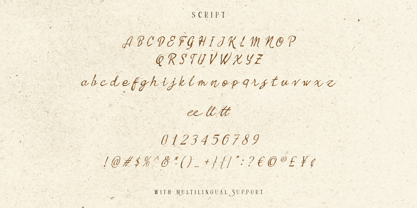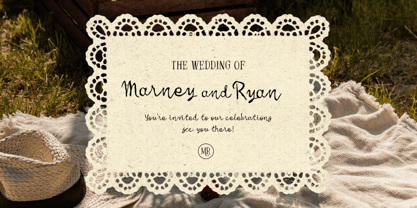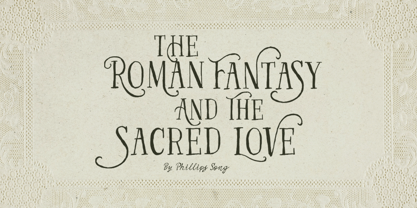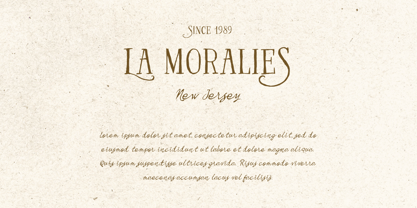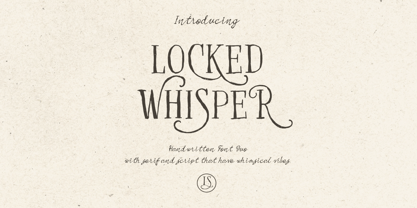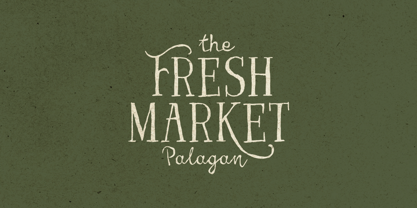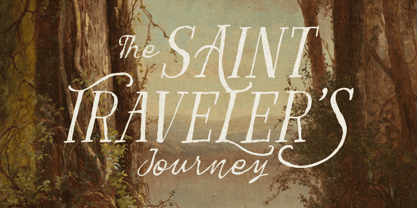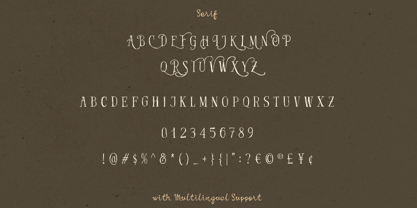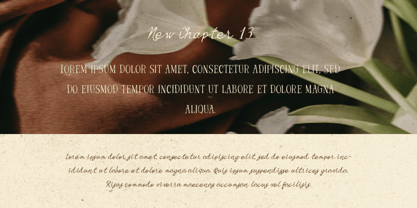
Locked Whisper
The Locked Whisper Font Family was designed by Hendry Juanda and published by Letterhend. Locked Whisper contains 4 styles and family package options. More about this family
Locked Whisper feels like a soft story written on aged paper—quiet, romantic, and a little bit magical. This handwritten font duo blends a delicate serif with a flowing handwritten script, creating a charming contrast that feels both timeless and gently expressive. Perfect for wedding stationery, intimate branding, poetic quotes, packaging, and editorial layouts that want to feel warm, nostalgic, and full of subtle emotion. Features : Uppercase & lowercase Numbers and punctuation Alternates & Ligatures Multilingual Support PUA encoded